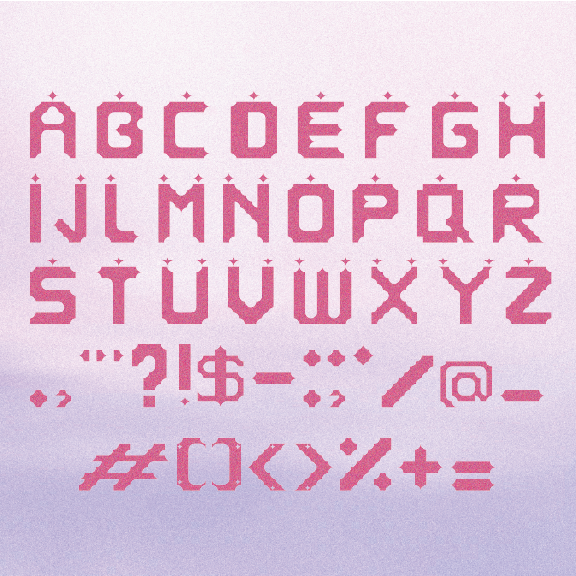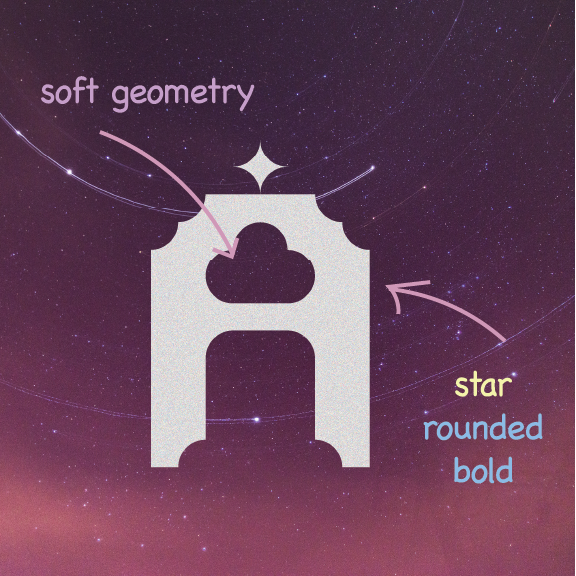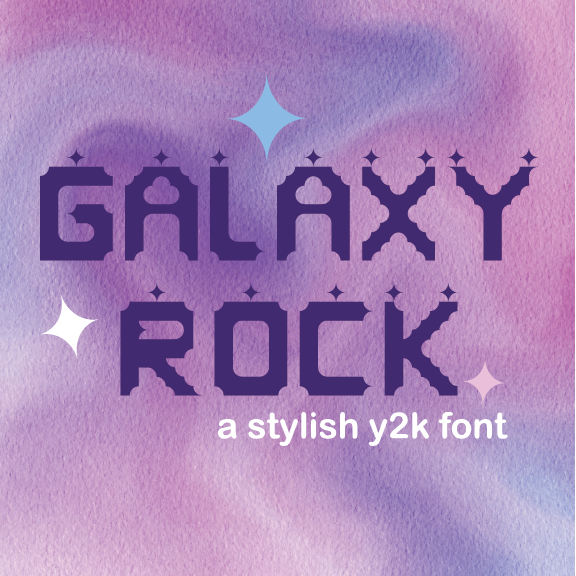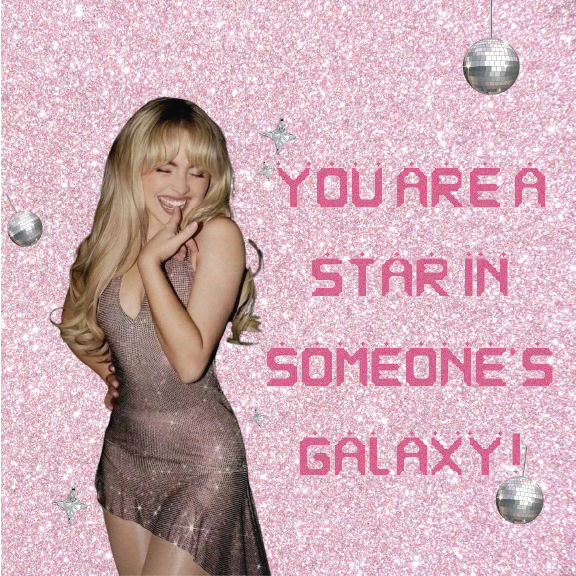
• Galaxy Glimmer is a Y2K-inspired font that blends the magic of twinkling stars with a hint of galaxy vibes. Its sleek, glowing lines create a mystical feel, merging technology with the wonders of the universe, offering a look that’s both modern and dreamy.